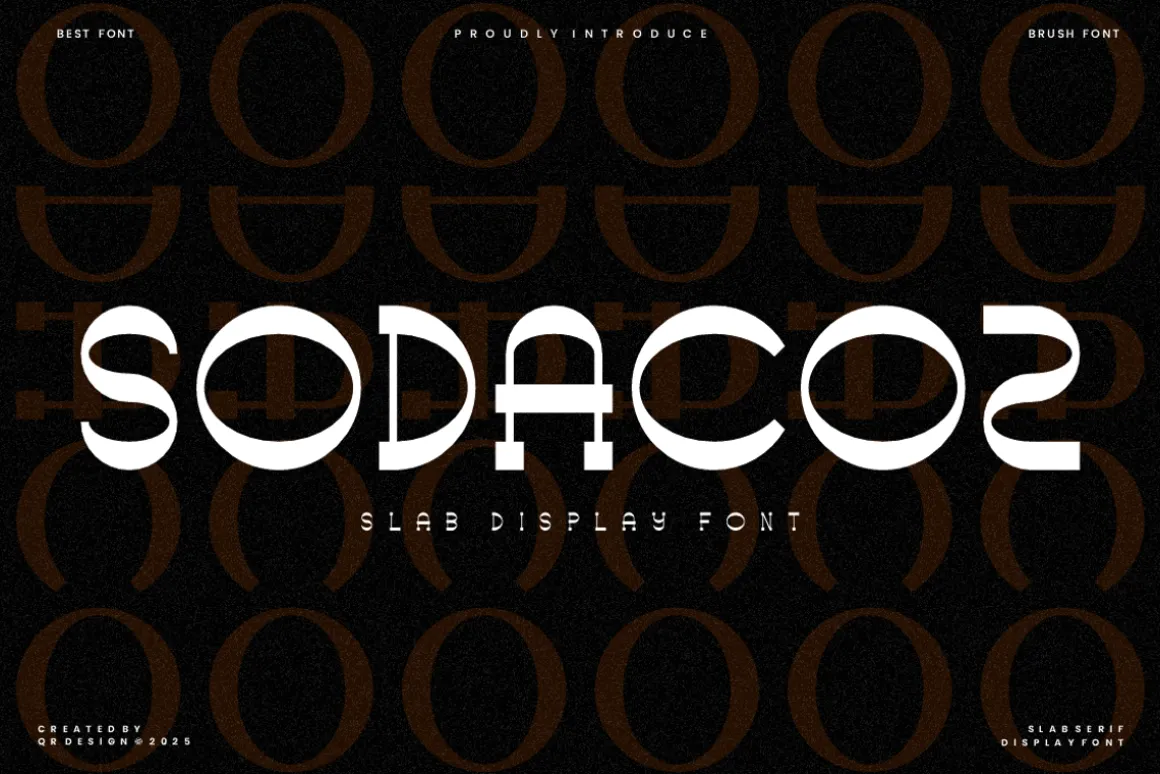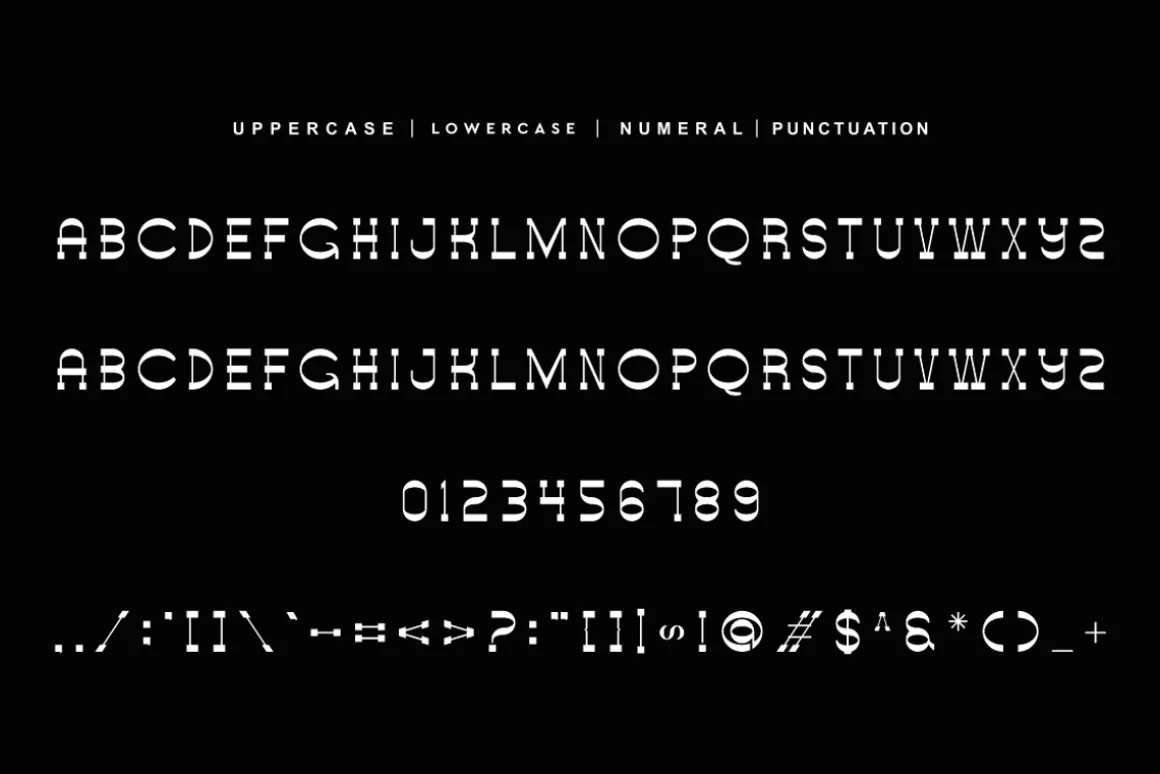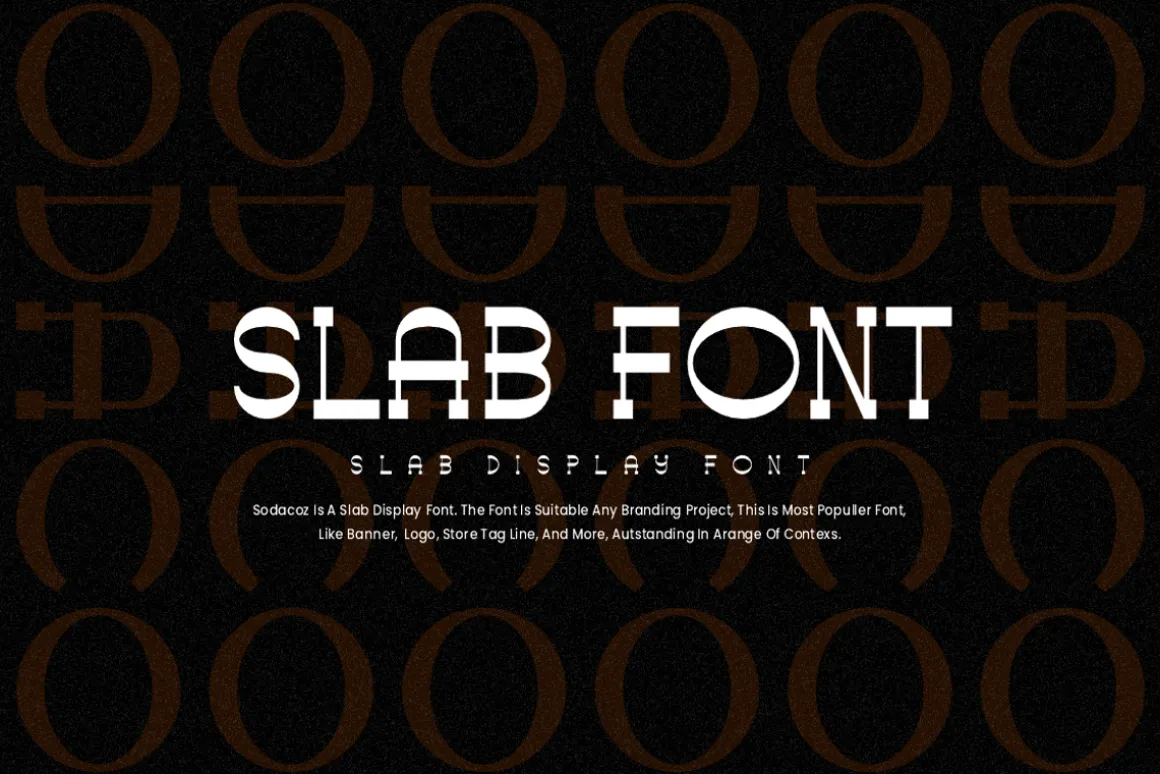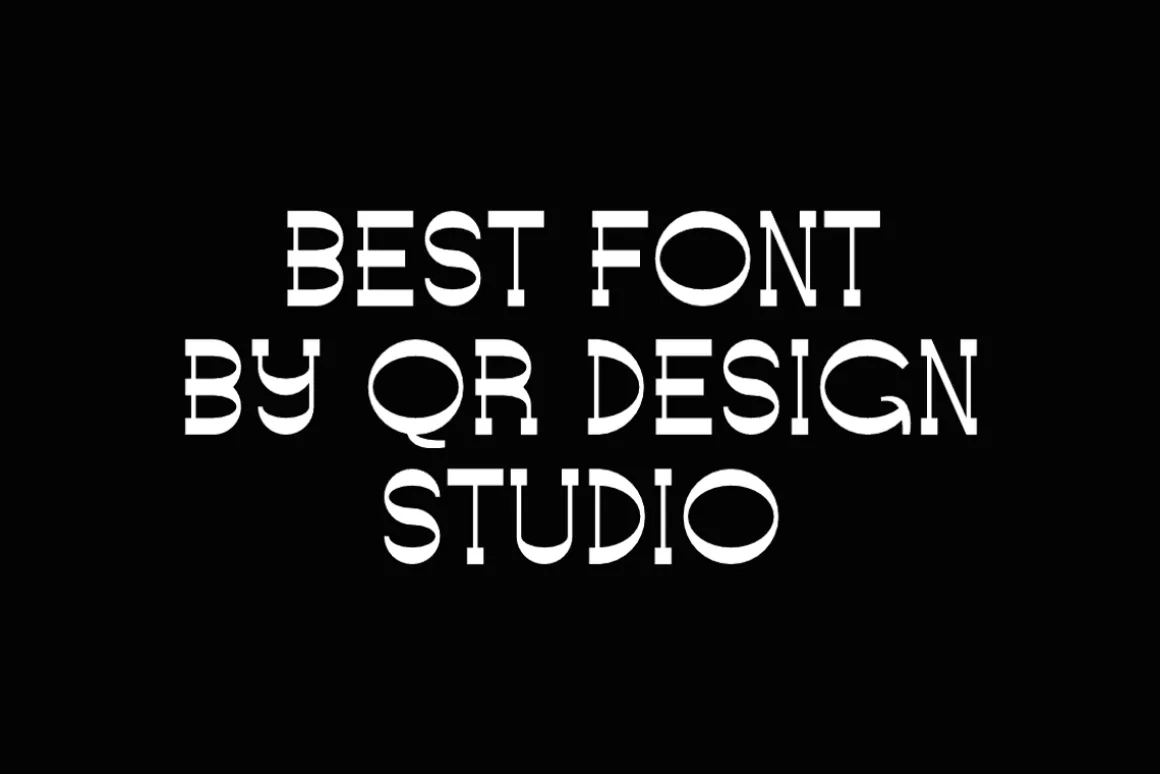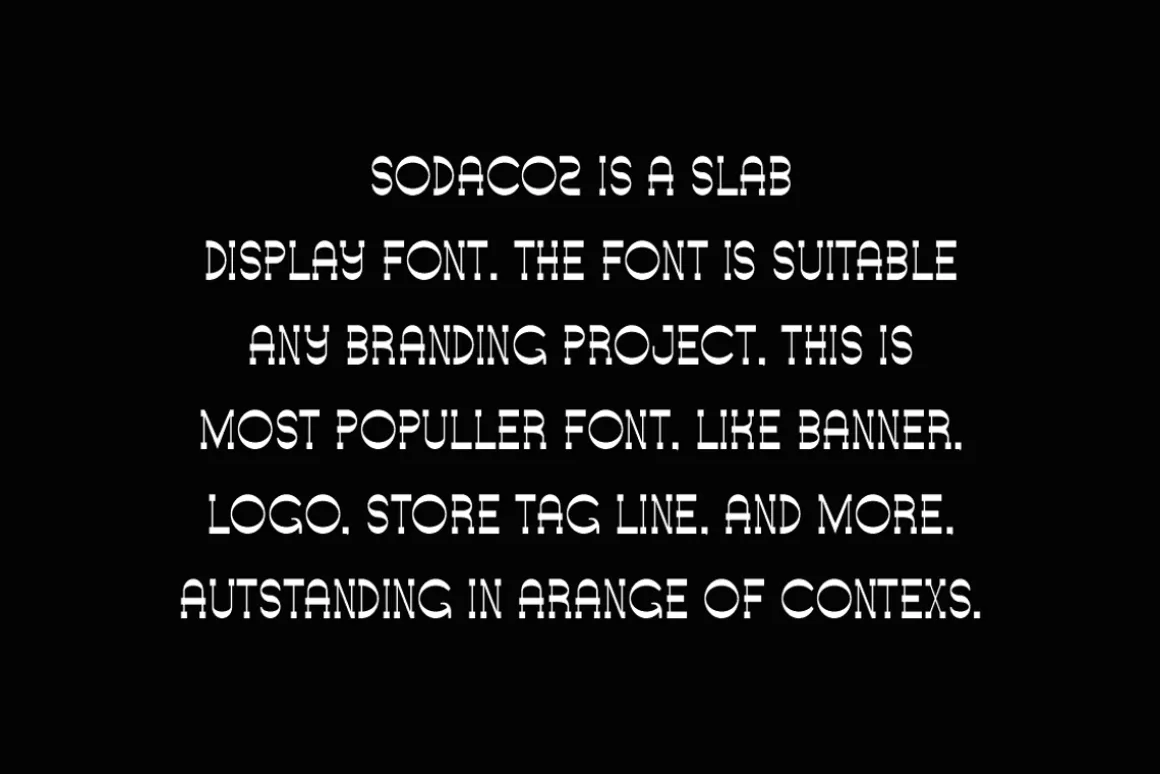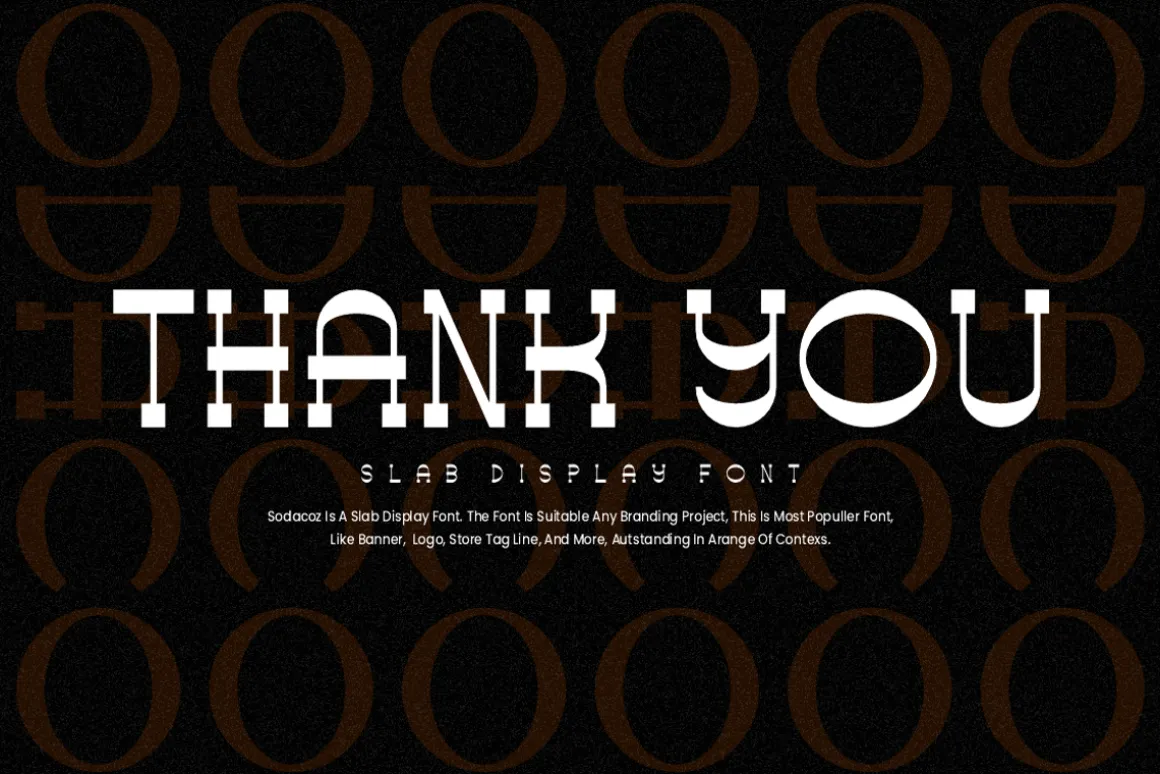
Sodacoz Font is a slab and authentic display font.The font is suitable for any branding project like poster, logo, sport, and many more.Outstanding in a wide range of contexts.